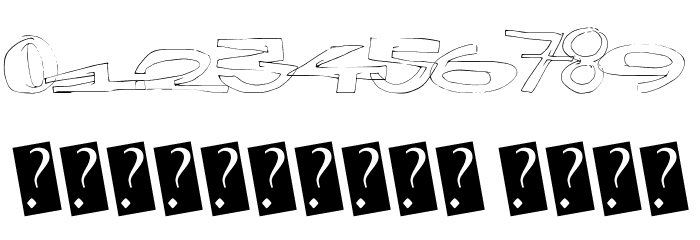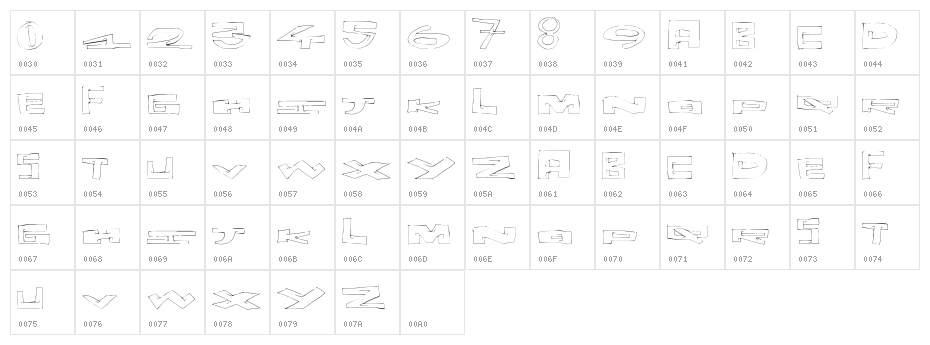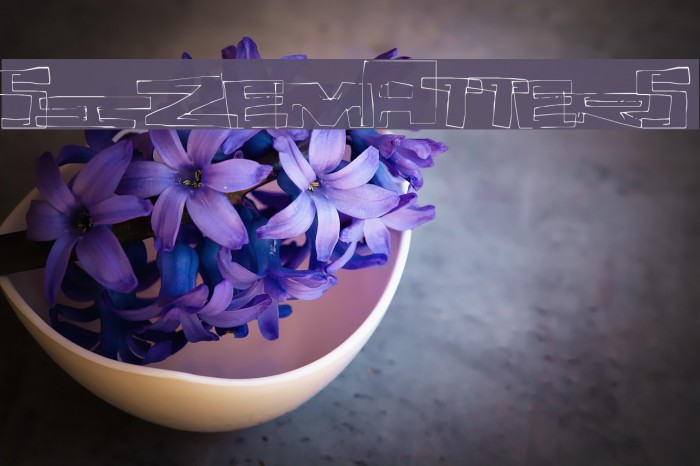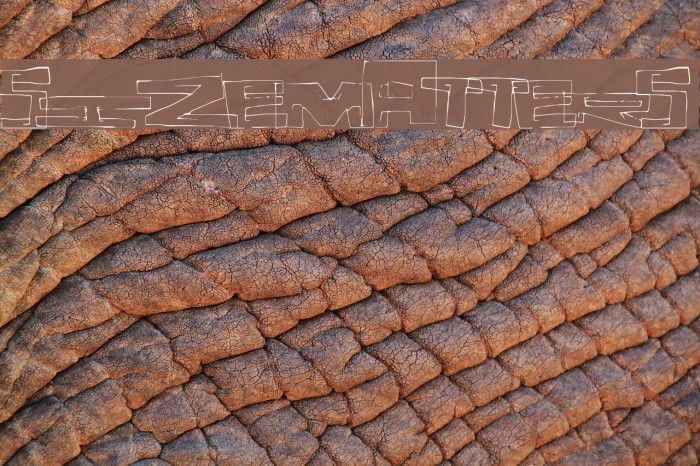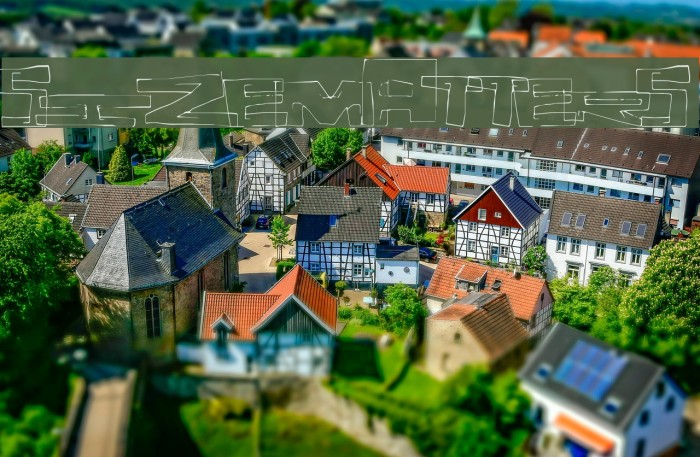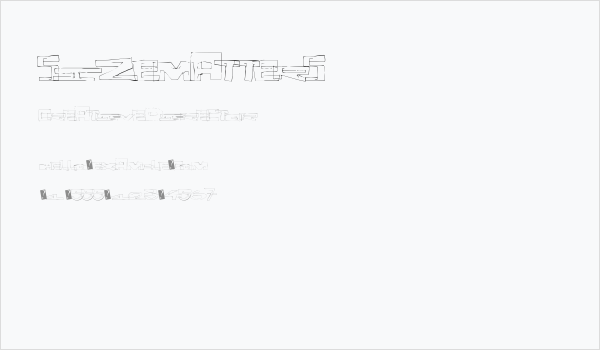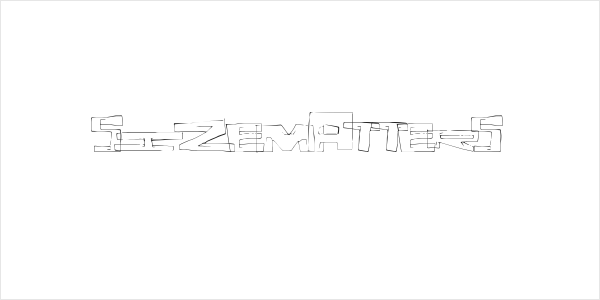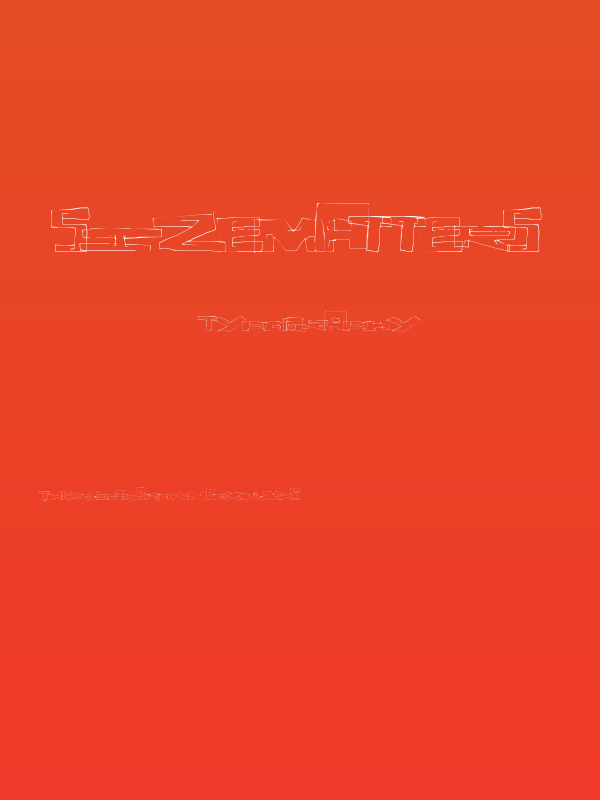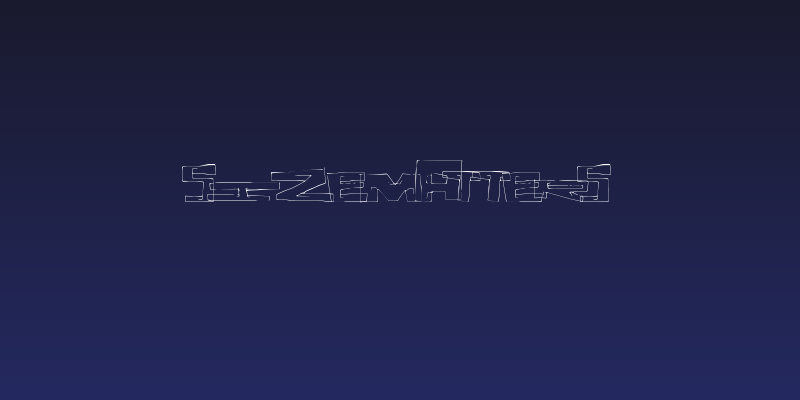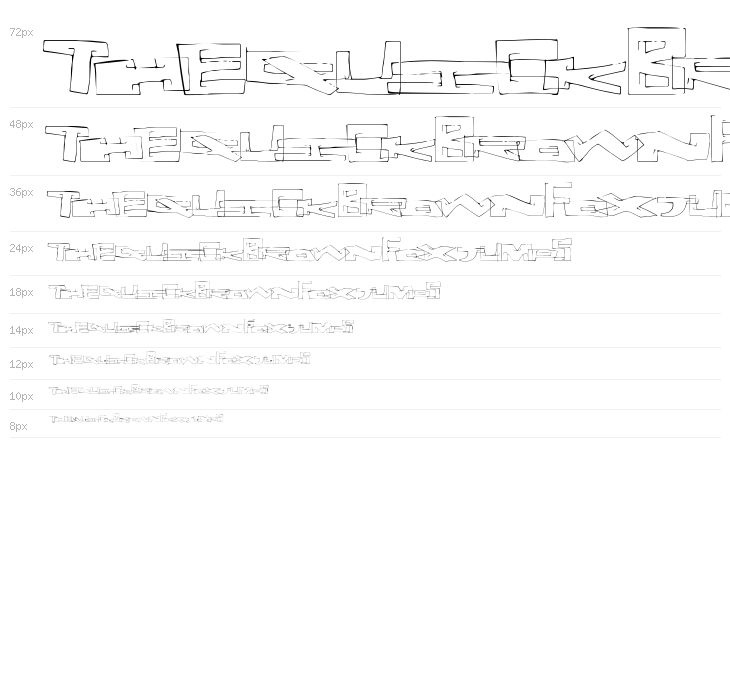
SizeMatters Font
SizeMatters Description
This font features a highly decorative and abstract design, characterized by its intricate line work and geometric shapes. Each character is uniquely crafted with a blend of sharp angles and smooth curves, creating a sense of movement and dynamism. The uppercase and lowercase letters maintain a consistent style, while the numbers and special characters add a playful touch to the overall design. The font's artistic nature makes it stand out, offering a unique visual appeal that is both modern and avant-garde.
| Use Case | Logos, Posters, Artistic projects |
| Proposed Projects | Ideal for artistic projects, modern posters, album covers, and creative branding. |